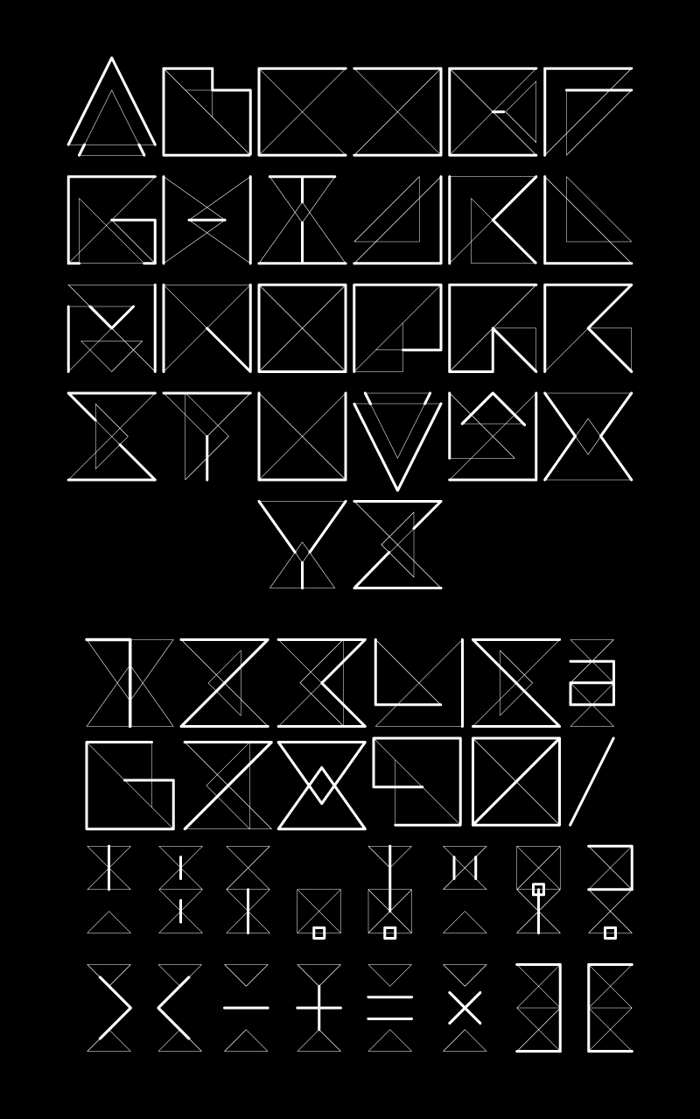
REMARK Font
REMARK™ is a geometric construction of "Line. Shape. Symbol. Character." Future of Typeface.
almost 13 years agoCreative, but incomprehensible.
almost 13 years ago@Spacini: It's a conundrum 😉
almost 13 years ago@GR8CIE Indeed it is! But I still like it.
Very creative!